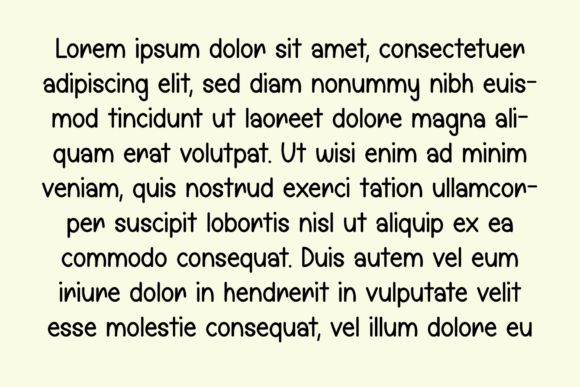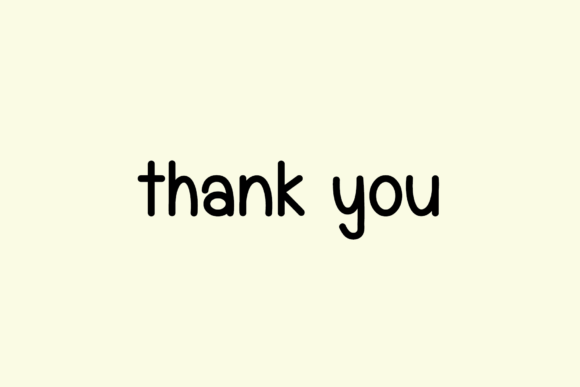
The Ultimate Guide to Ayldrad Font: Adding a Touch of Whimsy to Your Designs
Have you ever been in the middle of a design project, and suddenly, you’re stuck on finding the perfect font? I recall a particularly frustrating experience while working on a wedding invitation design. My client wanted something that was both elegant and playful, but I just couldn’t seem to find the right fit. That’s when I stumbled upon Ayldrad Font, and it completely transformed my design. In this article, we’ll dive into the world of Ayldrad Font, exploring its features, uses, and everything in between.
Ayldrad Font: A Personal Review
Ayldrad Font is a fun and friendly handwritten font that has quickly become a staple in my design toolkit. Here’s what I love about it:
- ✨ Whimsical and quirky, perfect for adding a touch of personality to your designs
- ✅ Versatile, suitable for a wide range of design projects, from logos to wedding invitations
- ✅ Easy to pair with other fonts, thanks to its unique yet harmonious style
While Ayldrad Font is an excellent choice for many design projects, it’s not without its quirks. Here are a few things to keep in mind:
- 🤔 Some characters may appear a bit inconsistent in terms of letter spacing, which can affect the overall flow of your text
- ⚠️ The font may not be the best choice for body text, as it’s more suited for headlines and titles
The Story Behind Ayldrad Font
Ayldrad Font was created with the intention of bringing a touch of whimsy and playfulness to the world of typography. Its unique blend of elegance and quirkiness has made it a favorite among designers and crafters alike. While the true story behind Ayldrad Font remains a mystery, its impact on the design community is undeniable.
| Font Name | Ayldrad Font |
| Author | Woracado |
| What is Ayldrad Font best suited for? | Ayldrad Font is perfect for logos, wedding invitations, quotes, advertisements, print, magazines, and more! |
| Is Ayldrad Font easy to read? | Yes, Ayldrad Font is highly legible, even at smaller font sizes. |